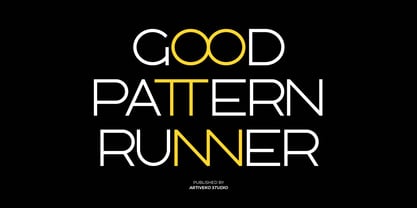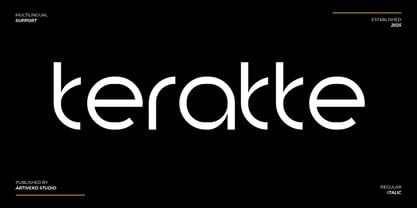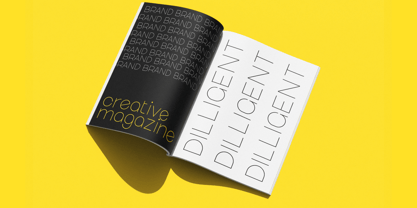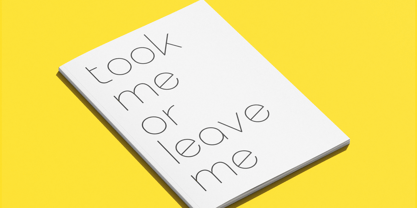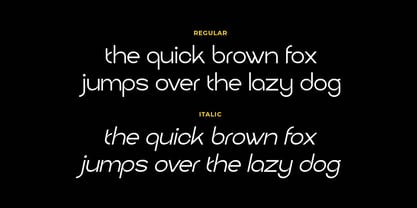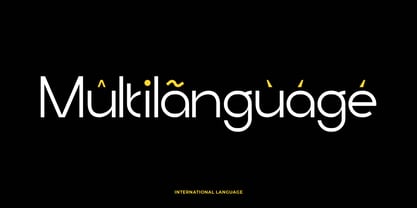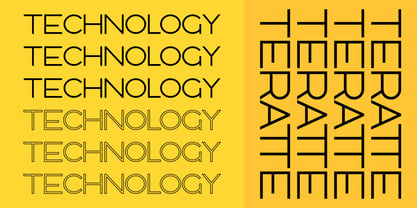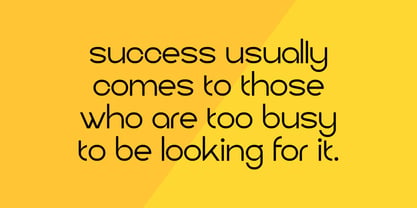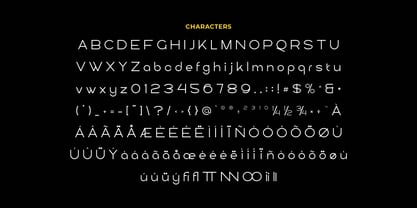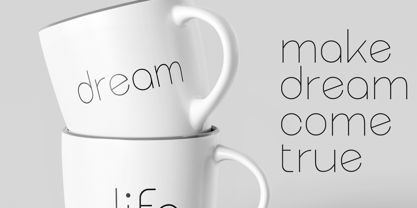
Teratte
by Artiveko
The Teratte Font Family was designed by Iwan Alwan and published by Artiveko. Teratte contains 2 styles and family package options. More about this family
Teratte is a creative minimalist sans serif font designed with simplicity and uniqueness in mind. Its sleek letterforms and subtle quirks create a modern yet artistic vibe—perfect for branding, logos, packaging, and digital content. Featuring multilingual support, ligatures, and alternates, Teratte brings a refined character to minimalist design with a touch of creative flair.
Designers: Iwan Alwan
Foundry: Artiveko